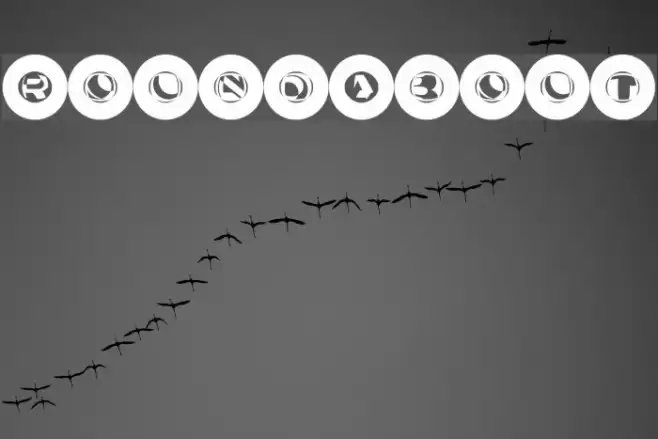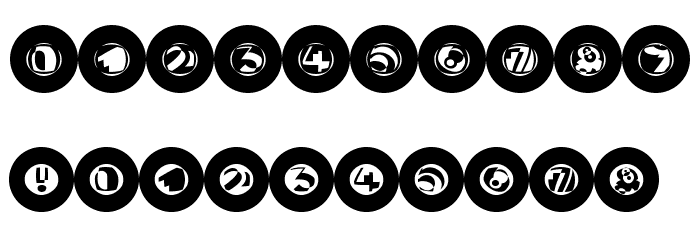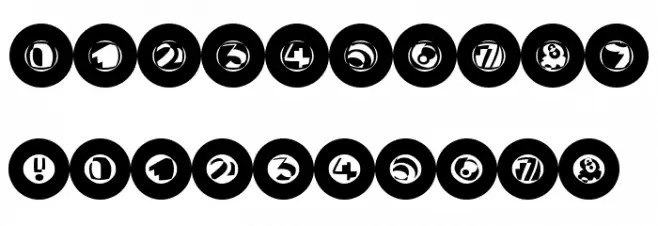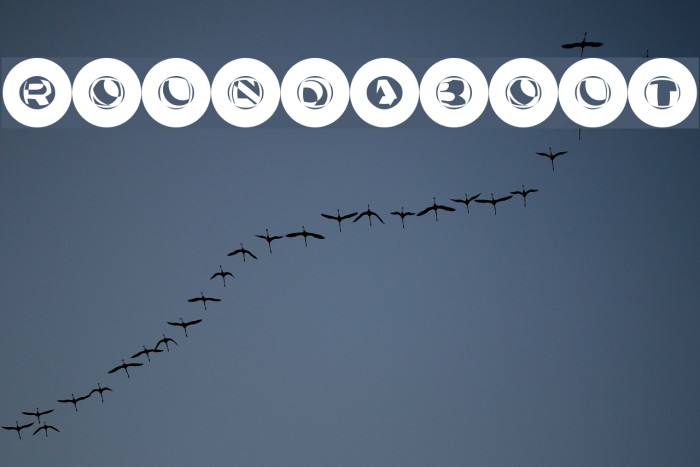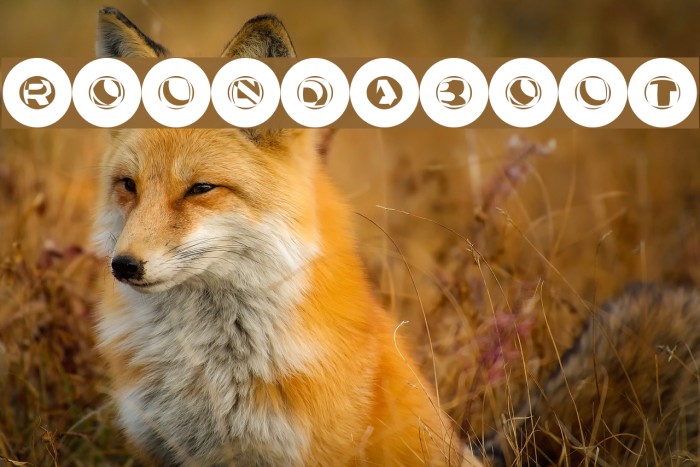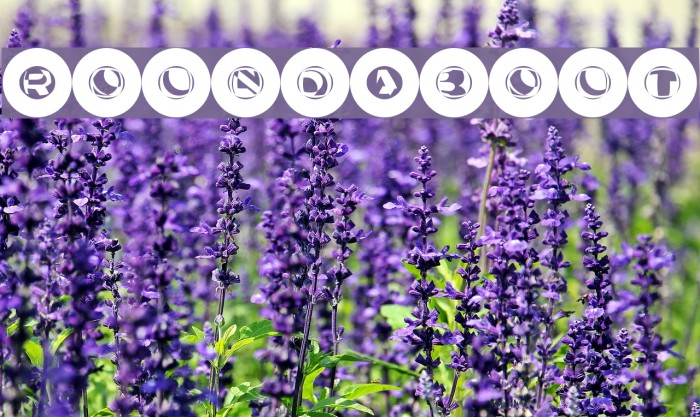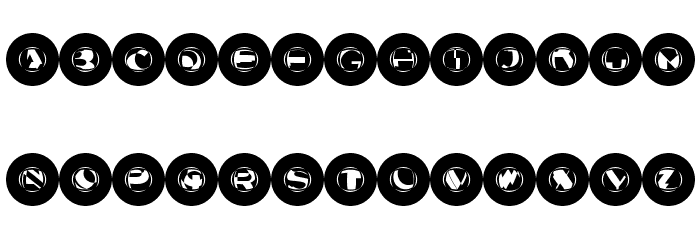
RoundAbout Font
RoundAbout Description
This font features a unique and playful design where each character is enclosed within a circular shape, creating a bold and eye-catching appearance. The letters and numbers are stylized with a modern twist, incorporating geometric elements that give them a futuristic feel. The overall look is both decorative and functional, making it suitable for a variety of creative projects. The characters are evenly spaced within their circular boundaries, ensuring readability while maintaining a distinct visual style.
A modern, circular font with geometric and decorative elements from Uncategorized fonts.
- Proposed Projects: Ideal for logos, posters, and branding materials that require a bold and modern aesthetic.
- Use Case: Logos, Posters, Branding